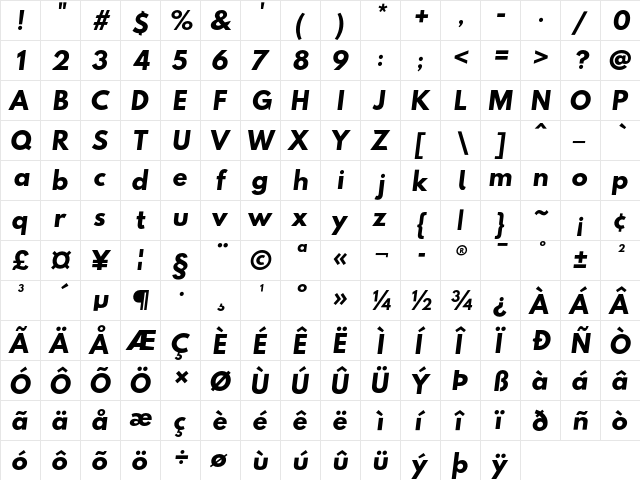
Hussar BdOblOne Font Preview
Hussar BdOblOne
Hussar BdOblOne Font Details
| Style | BdOblOne |
| Foundry | Cannot Into Space Fonts |
Design Context for Hussar Typeface
Hussar offers clean, dependable letterforms without strong stylistic allegiance, making it a practical choice for designers who need flexibility.